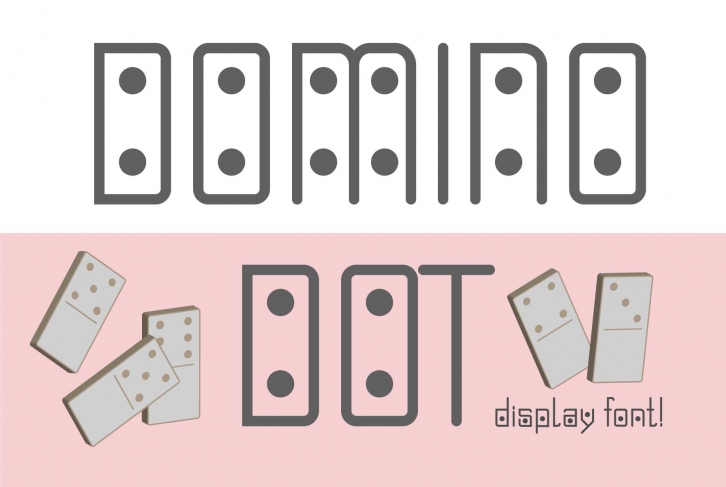
Domino-dot monospace san serif duo is a gorgeous font that was realeased on July 31, 2018. The font can be used in many style contexts and design environments. Perfect for invitations, magazines, websites, logos, and more! It was designed by Zimages and the file size is 11.49 MB. Thanks for checking out this font!